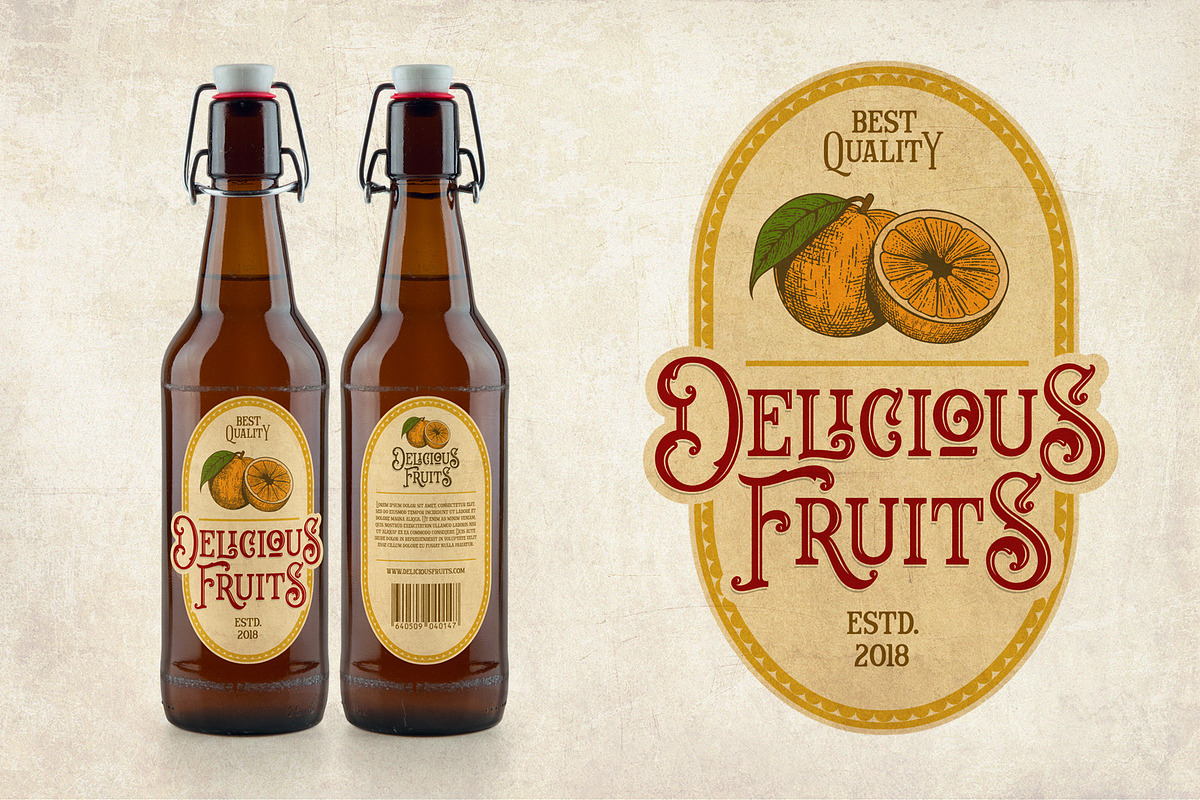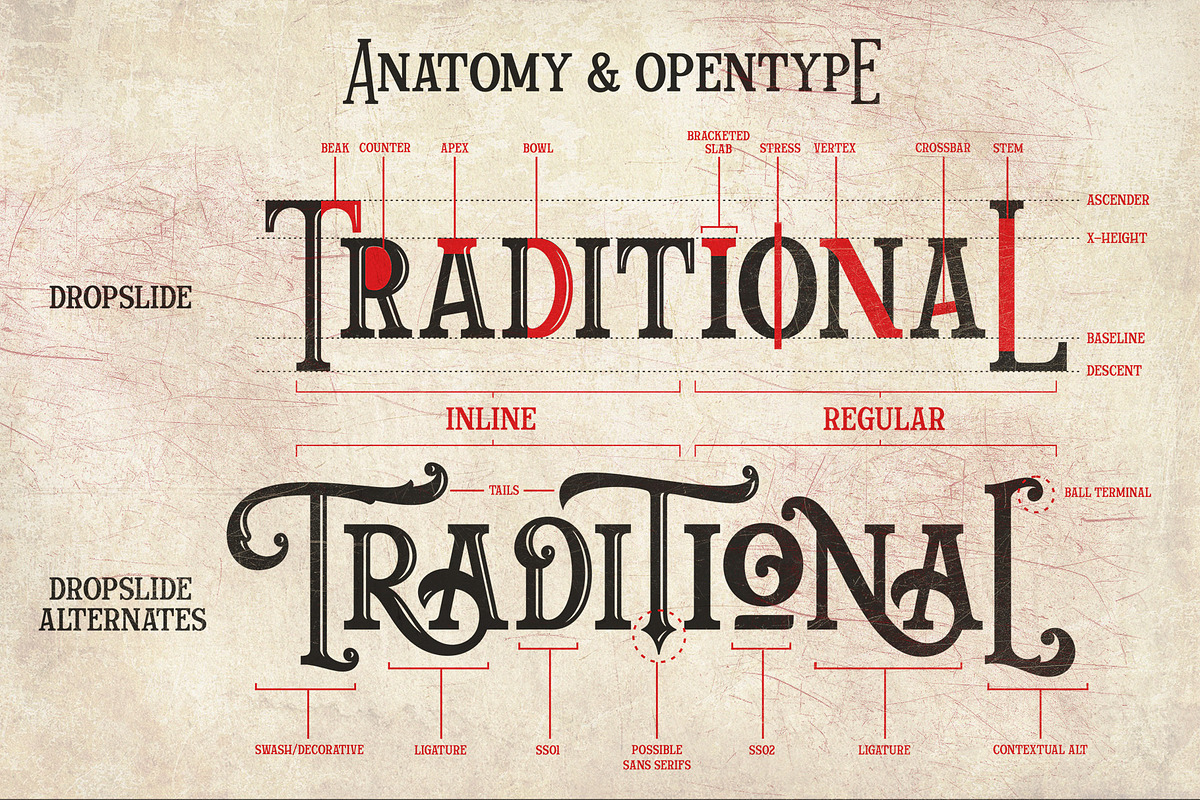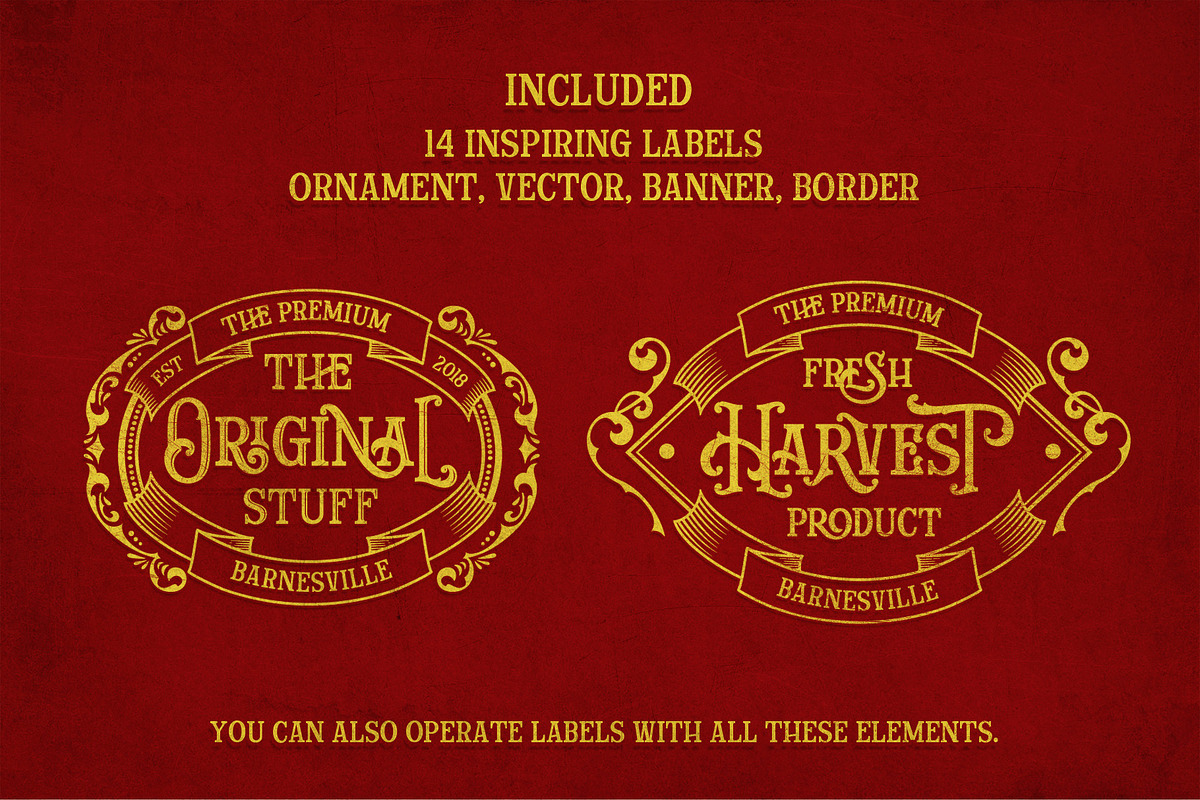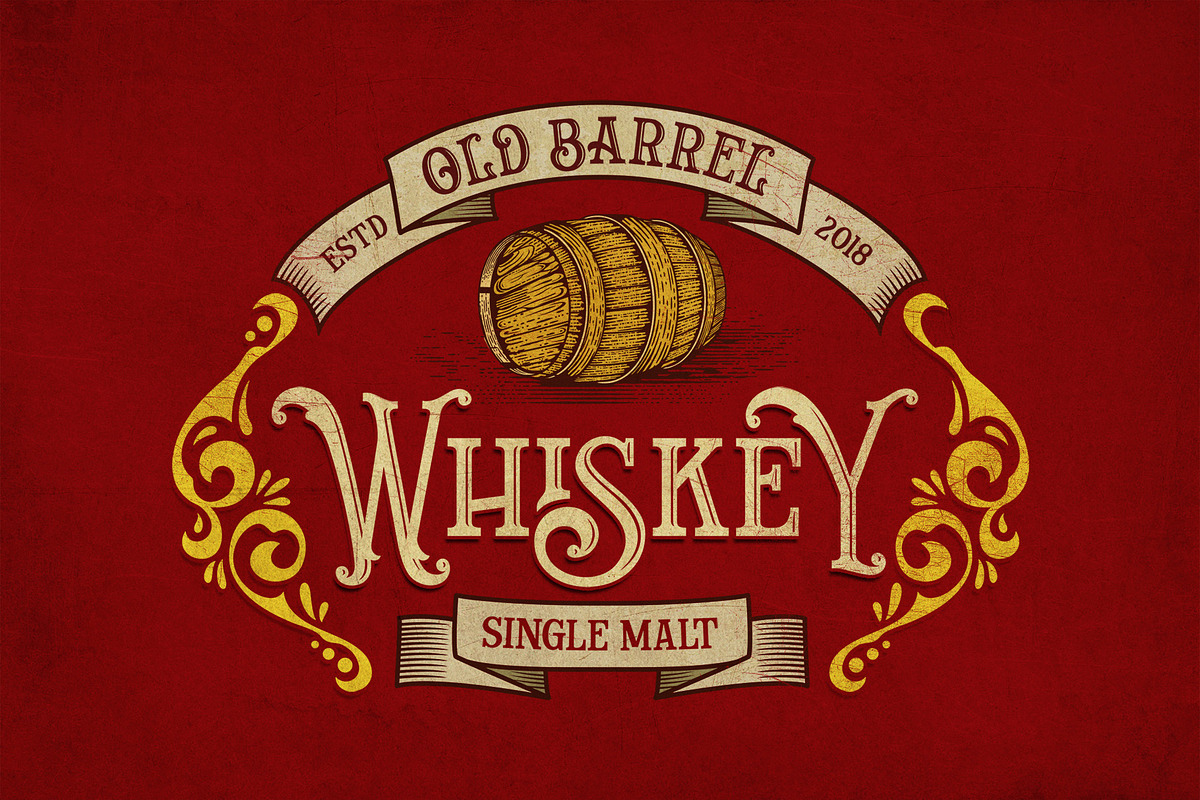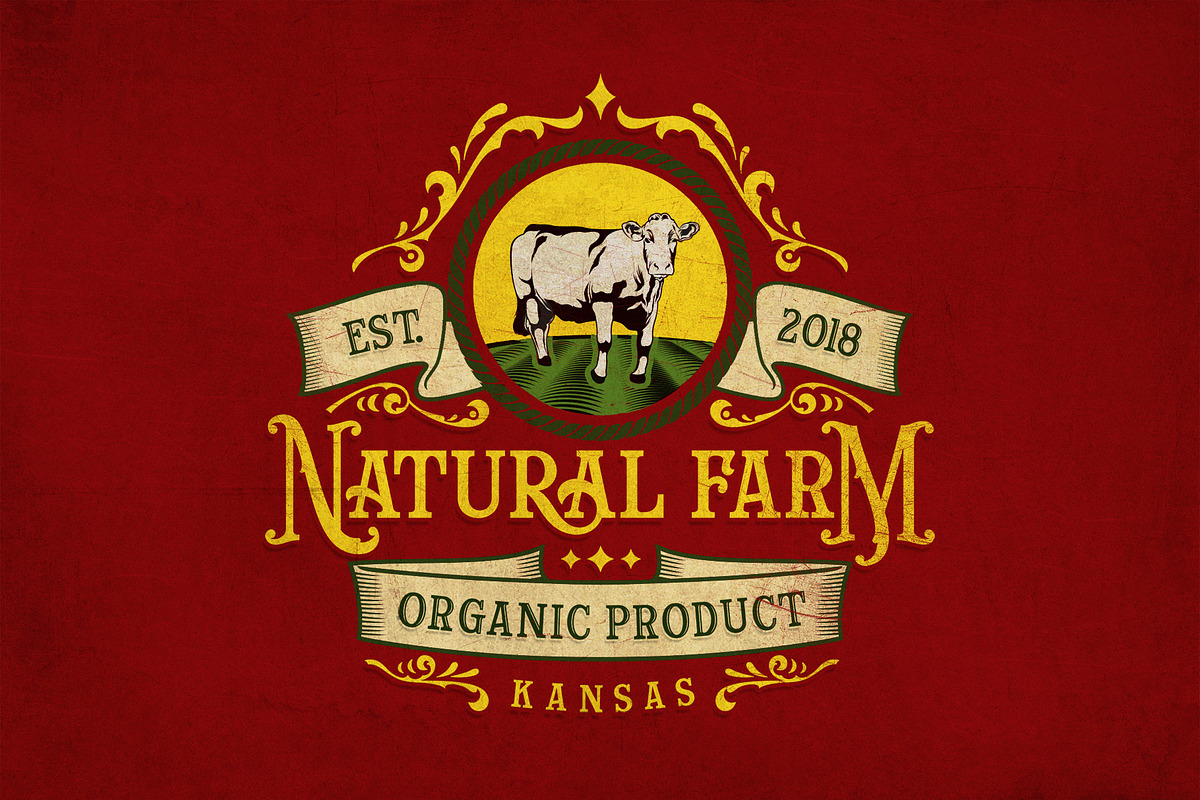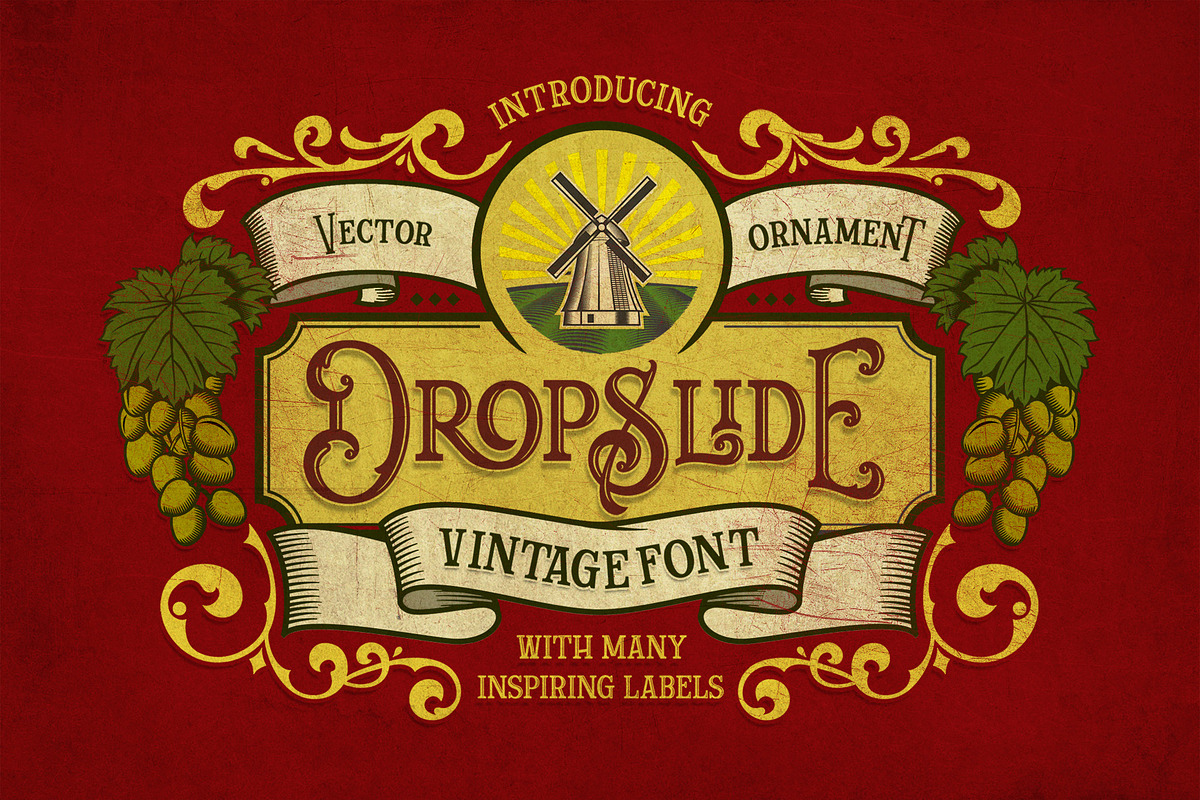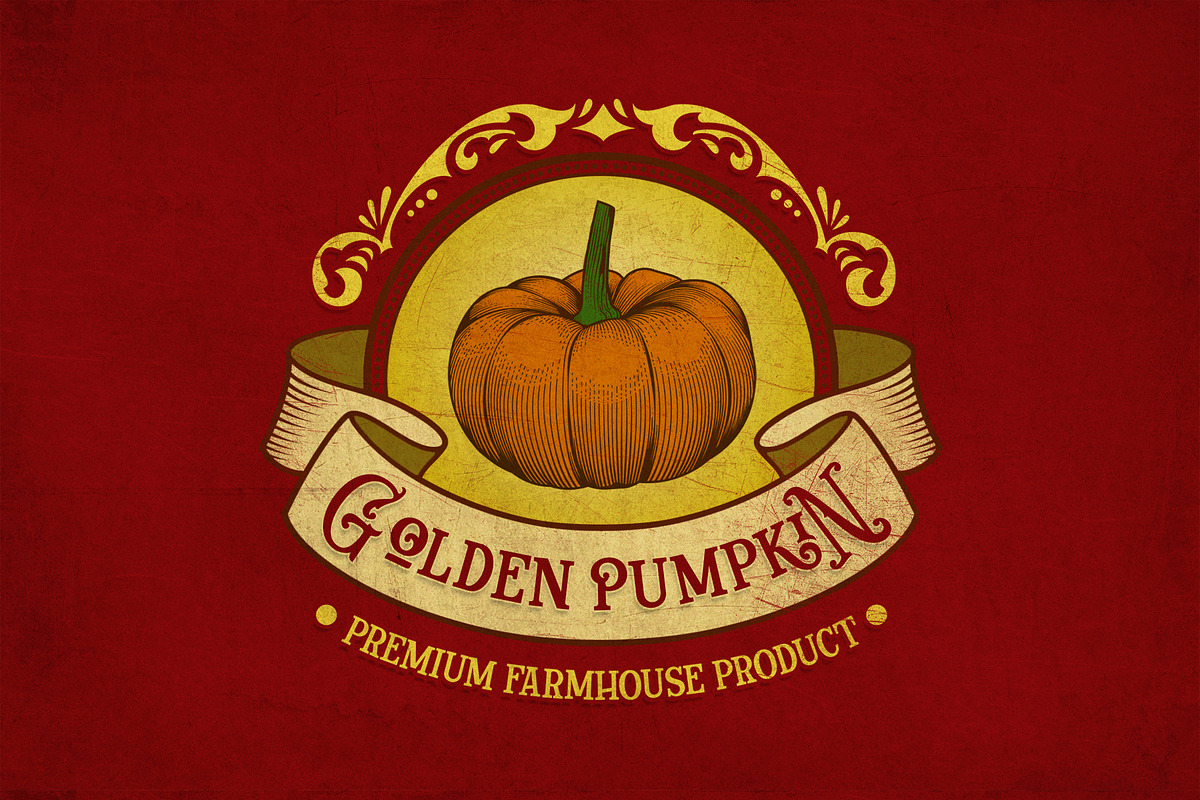
Dropslide Typeface + Extra
Dropslide is a font display is made by hand, inspired by classic posters. Bring up your vintage passion with this font, so much inspiration as you access it. All benefits you will feel when you start to create works with Dropslide fonts. What are you waiting for, the best price and best quality we give you with pride.
Dropslide comes with uppercase, lowercase, numerals, punctuations and so many variations on each character include opentype alternates, common ligatures and also additional swash to let you customise your designs. Perfect to use for Logotype, Letterhead, Poster, Apparel Design, Label and etc.
Please typing for ligatures test: as, es, fi, ga, ge, ha, he, is, ka, ki, ko, li, lo, na, no, ra, ri, ro, tt, zo